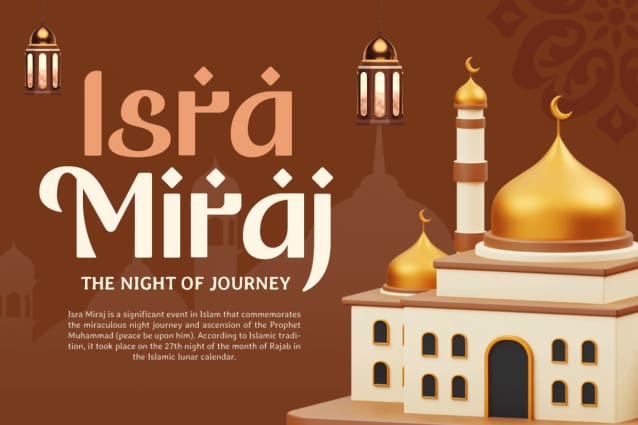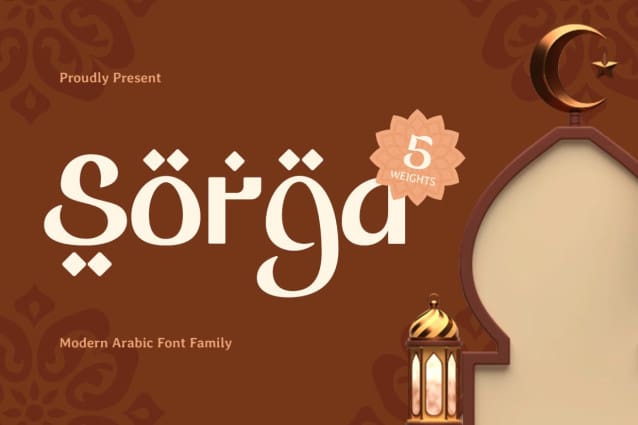
Sorga Arabic Font
Sorga Arabic Font is a contemporary Arabic font family that combines timeless elegance with modern design aesthetics. Perfect for branding, Ramadan campaigns, and creative projects, its clean and balanced characters add sophistication to every layout. Whether used for logos, invitations, or advertisements, Sorga elevates your designs with a polished, upscale touch.
Drawing inspiration from traditional Arabic calligraphy and modern typography trends, Sorga offers versatility and grace for both digital and print media. Its multiple weights and styles ensure compatibility across various projects, from luxurious product packaging to sleek web designs. Sorga embodies culture and creativity, making it an essential choice for modern designers.
Unlock the potential of your designs with Sorga Arabic , a font family crafted for those who seek to blend tradition and innovation seamlessly. This font family is the ultimate tool for creating impactful and elegant visual communications.